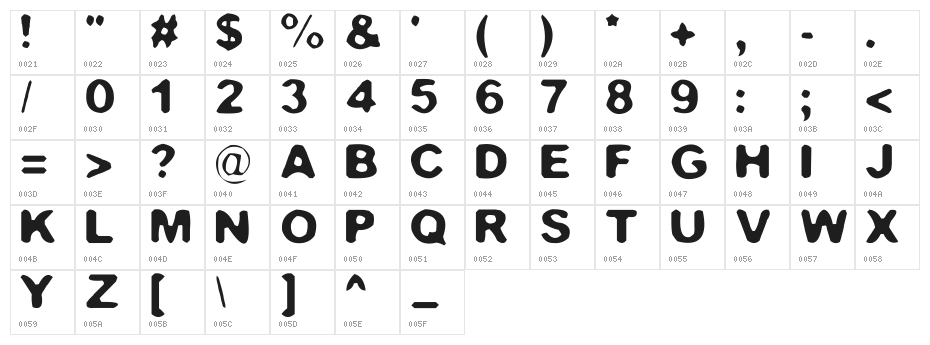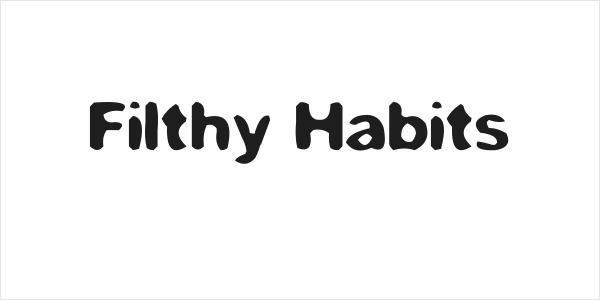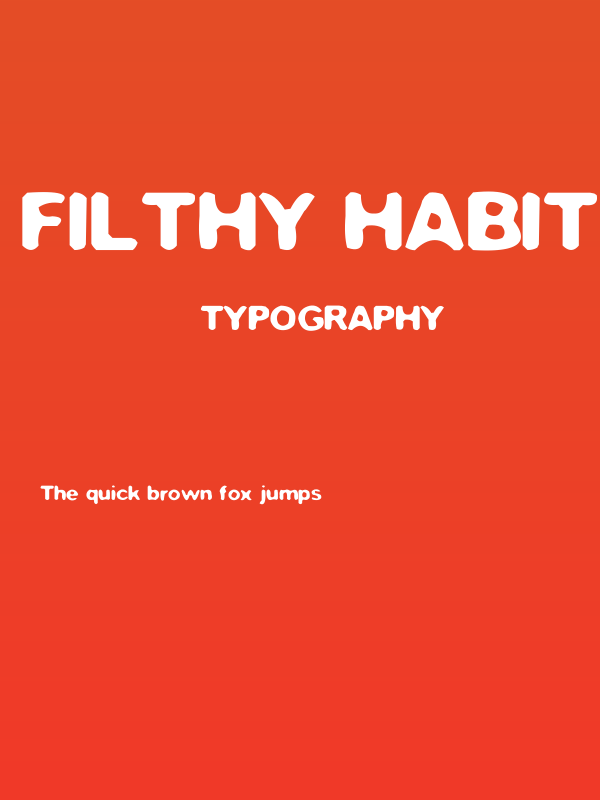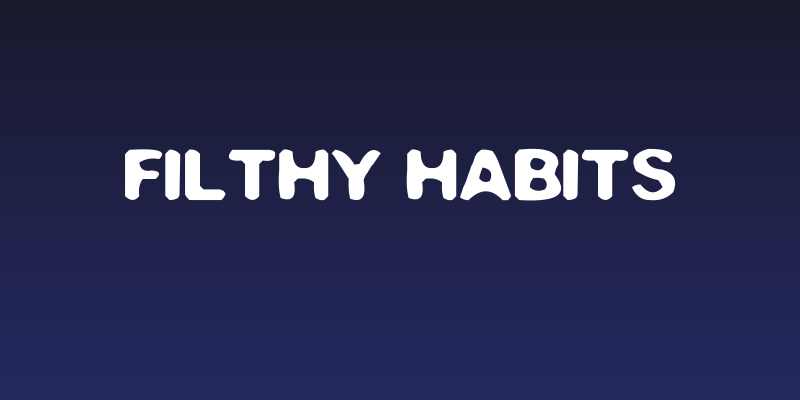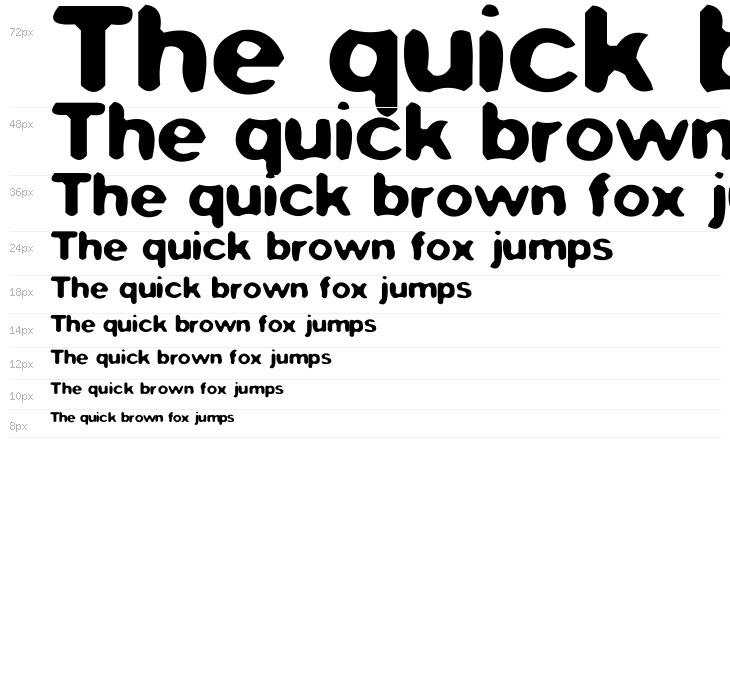
Filthy Habits Font
| 幅 | Expanded |
| 全体的なスタイル | Modern, Playful |
| 用途 | Headlines, Posters, Branding |
| おすすめプロジェクト | Ideal for posters, children's books, comic strips, and branding for playful or creative products. |